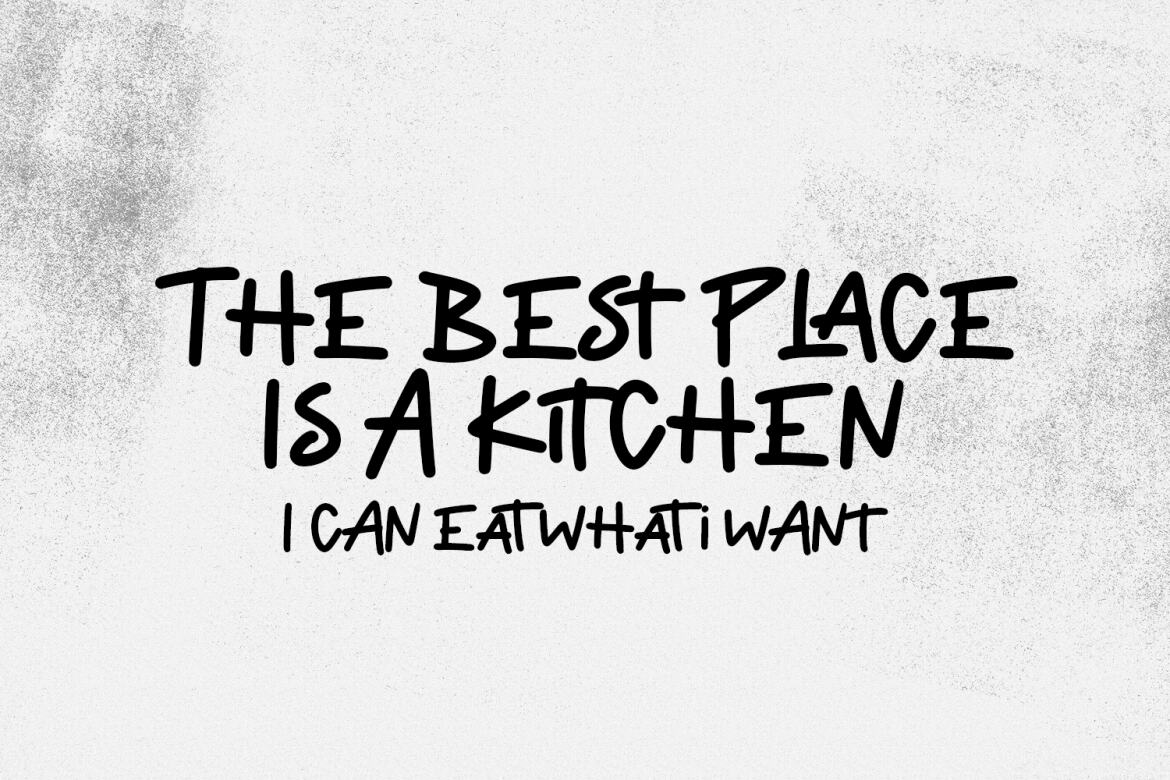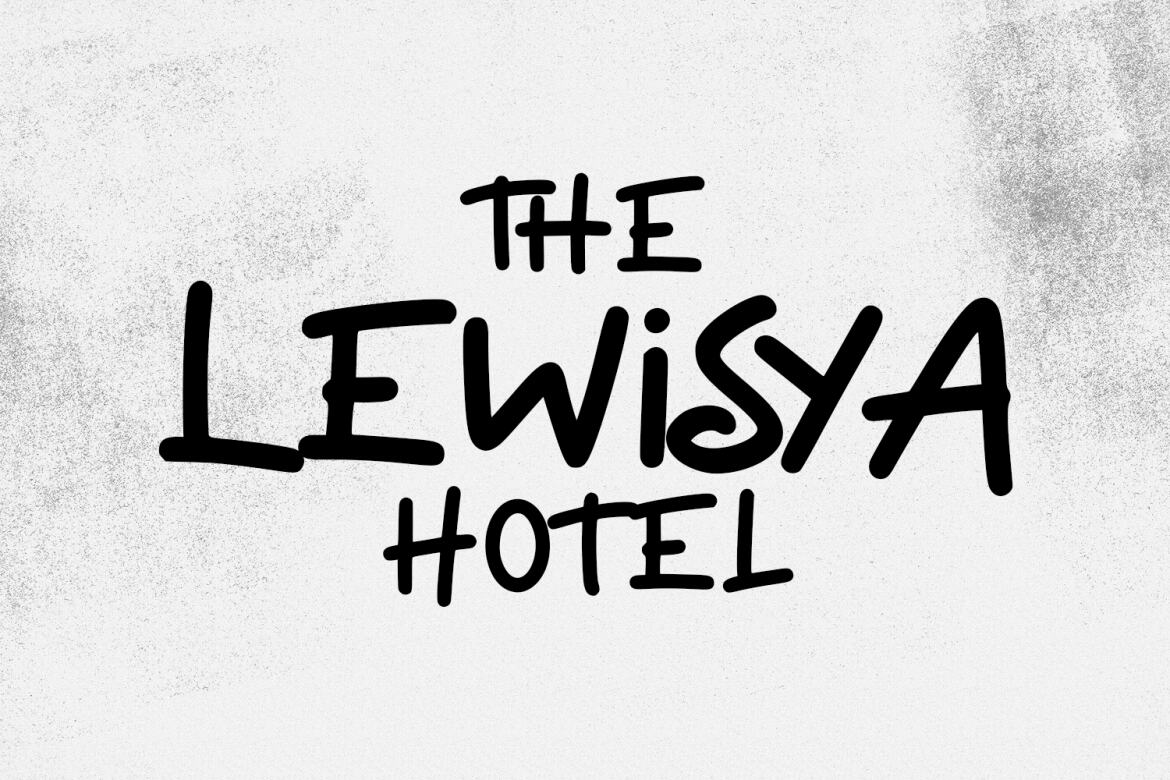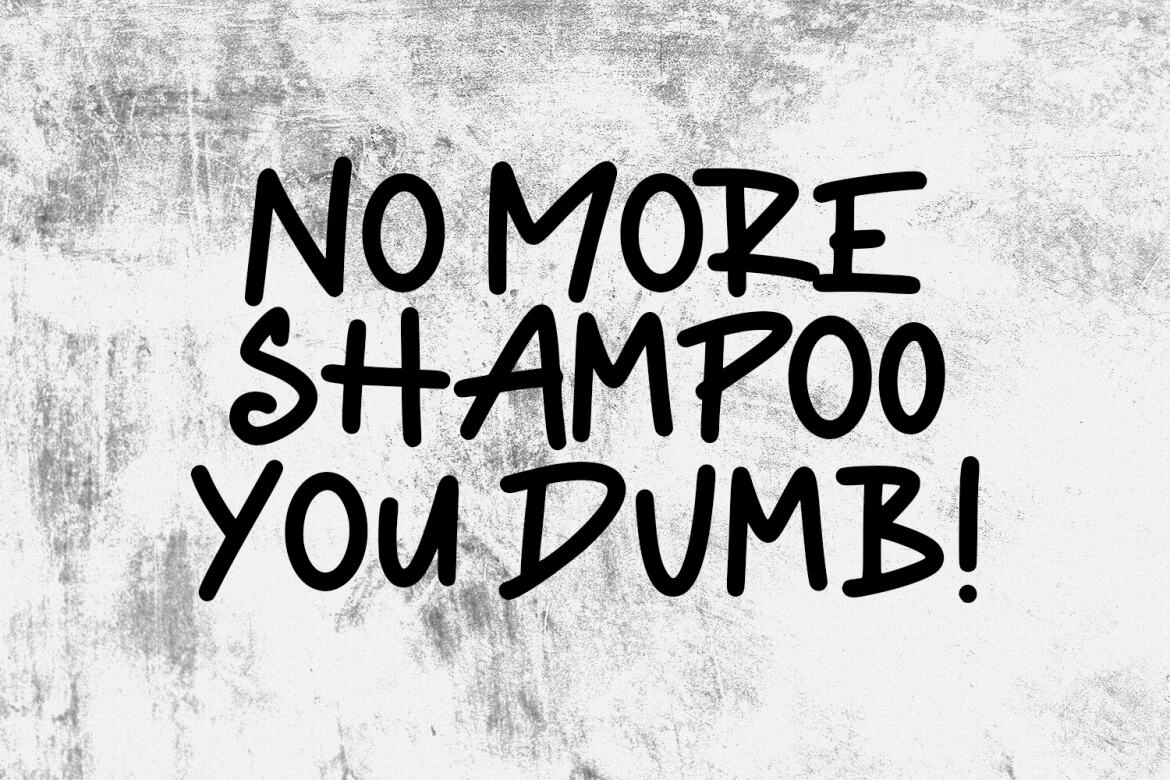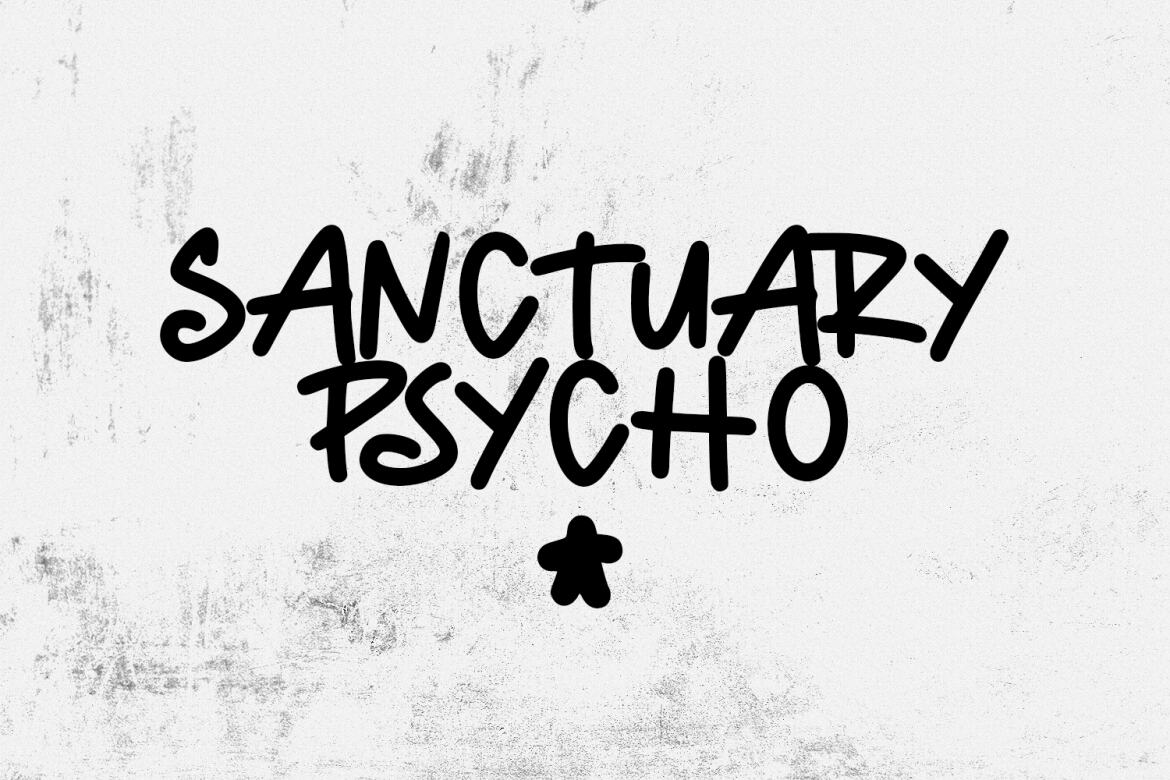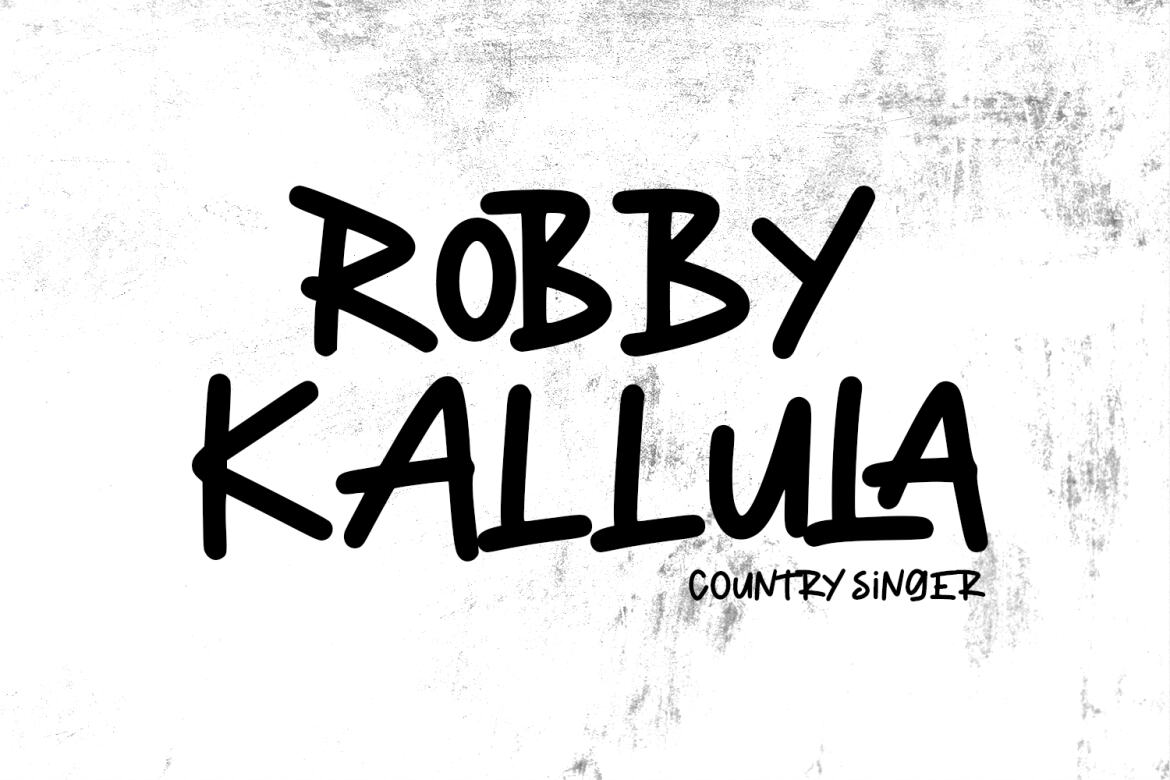
Crisp Cracks
"Crisp Cracks" is a casual Handwritten font. With regular stroke, fun character with a bit of ligatures, lowercase alternates and swashes. To give you an extra creative work. "Crisp Cracks" font support multilingual more than 100+ language. This font is good for logo design, Social media, Movie Titles, Books Titles, a short text even a long text letter and good for your secondary text font with sans or serif. Make a stunning work with "Crisp Cracks" font.